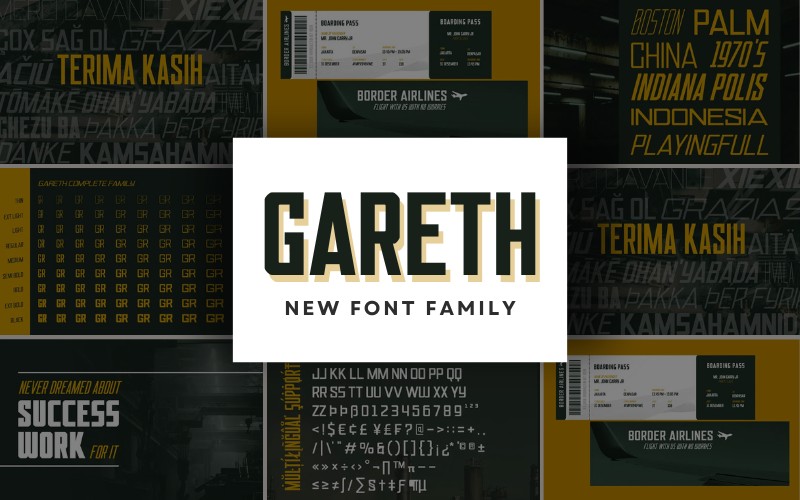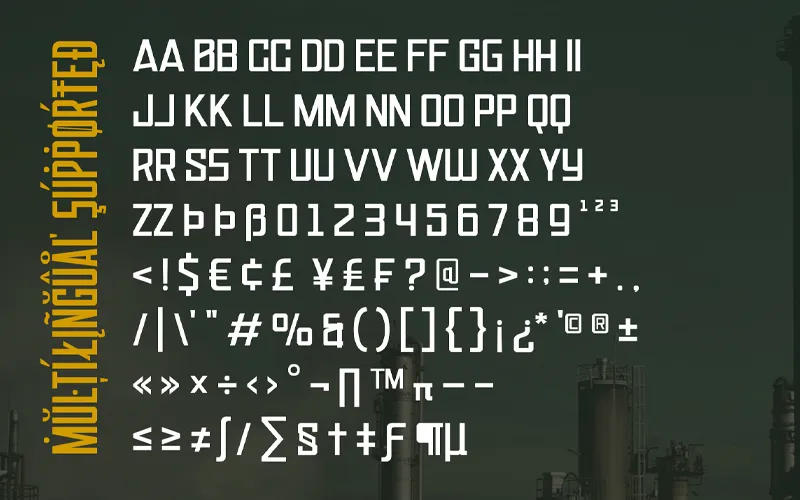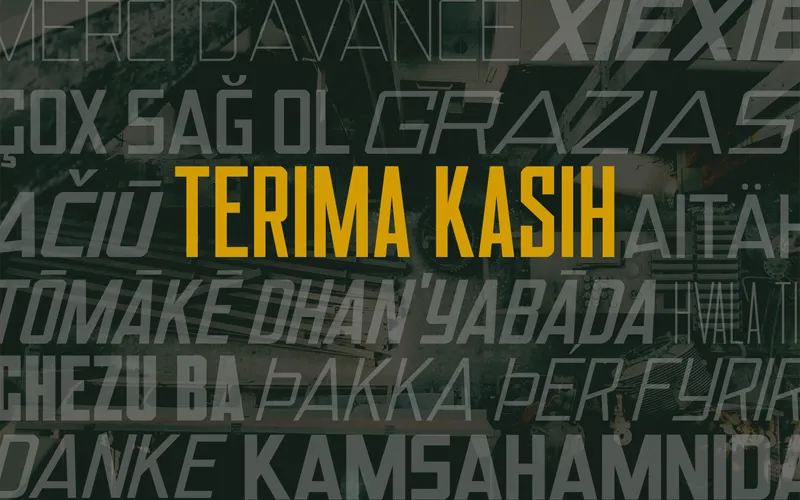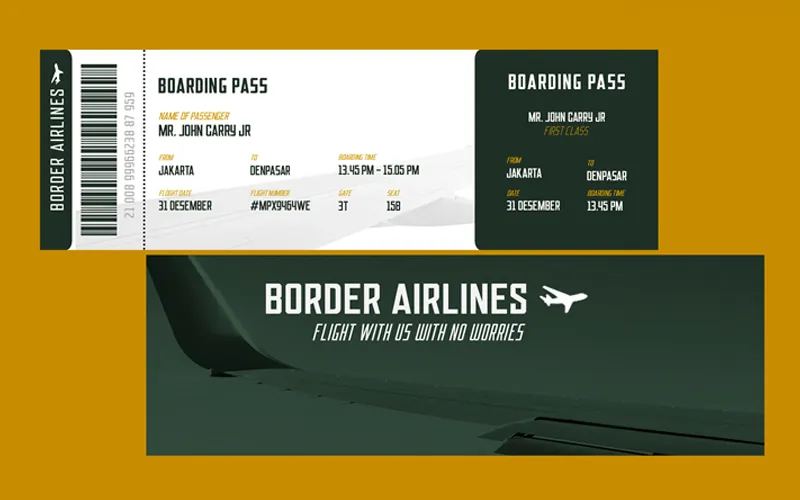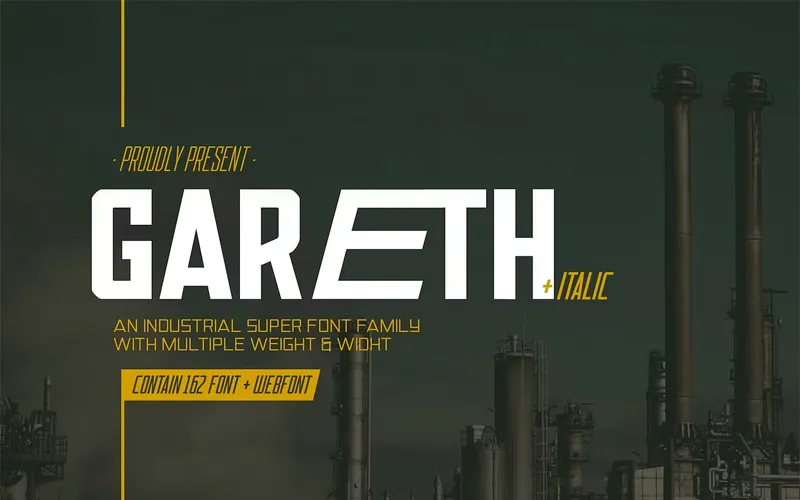
Gareth – New Font Family
The Gareth Font Family includes 162 Font styles in OTF, TTF, WOFF & WOFF2.
These font styles come in multiple weights and heights which include slanted, regular, bold, black, thin, tall, italic, and more.
Whether you’re working on branding, editorial design, or digital content, the Gareth Font Family ensures that every creation of yours, stands out.
Gareth Font Family Preview
Weights available in the fonts
Preview of special characters included
A flight ticket designed using the fonts included
Gareth font Preview
Sample text written using the Gareth Font
A flight ticket designed using the fonts included